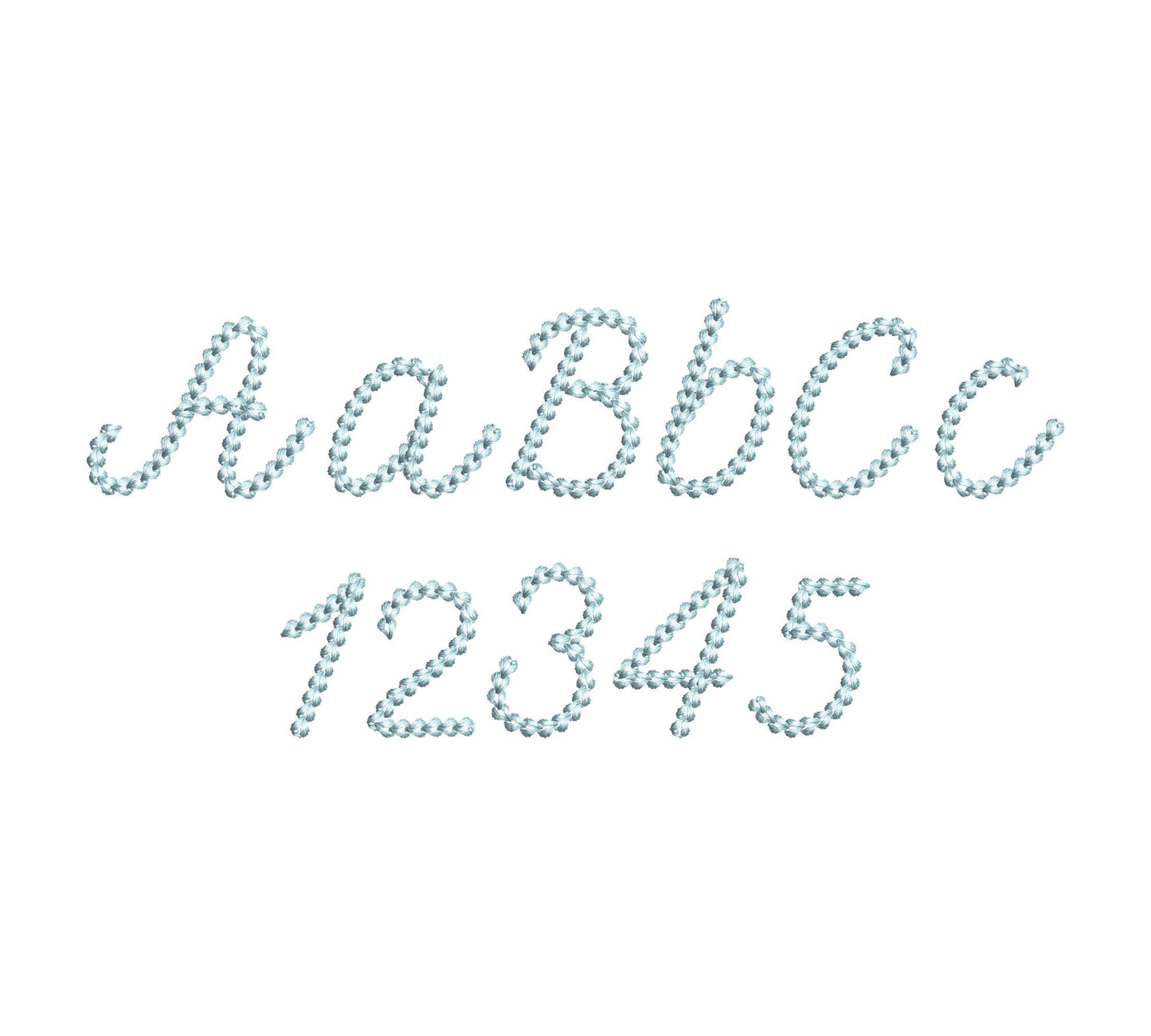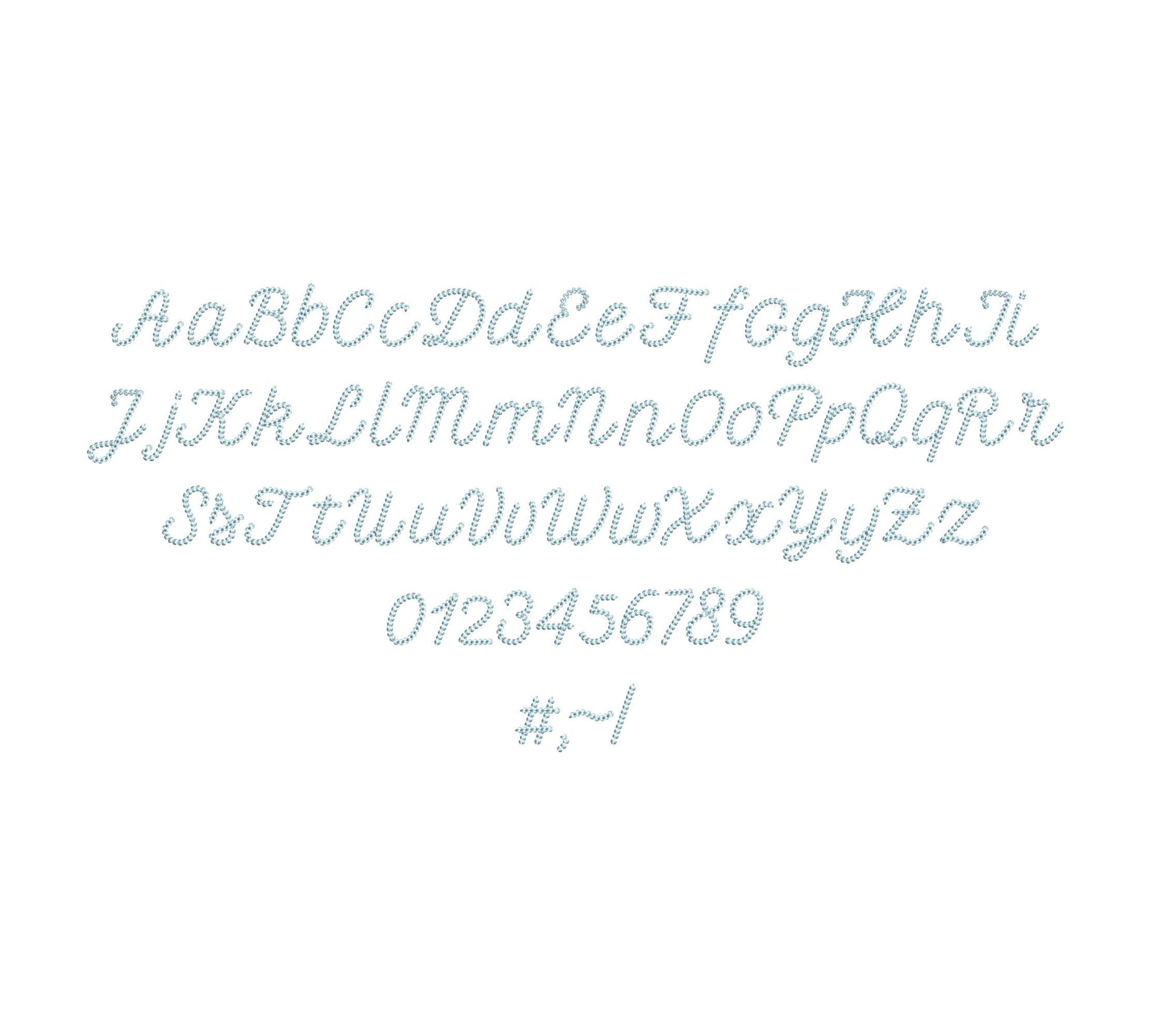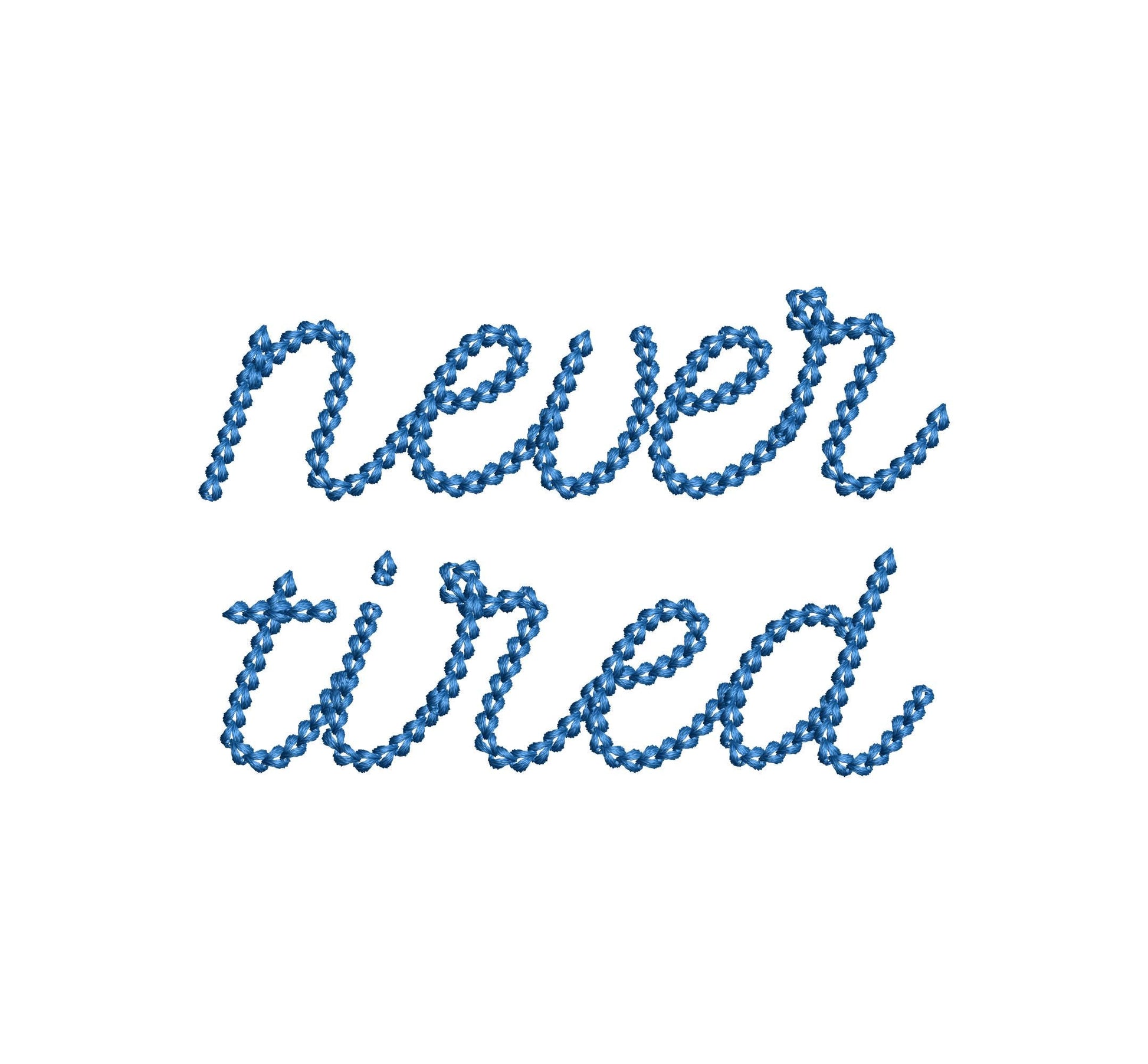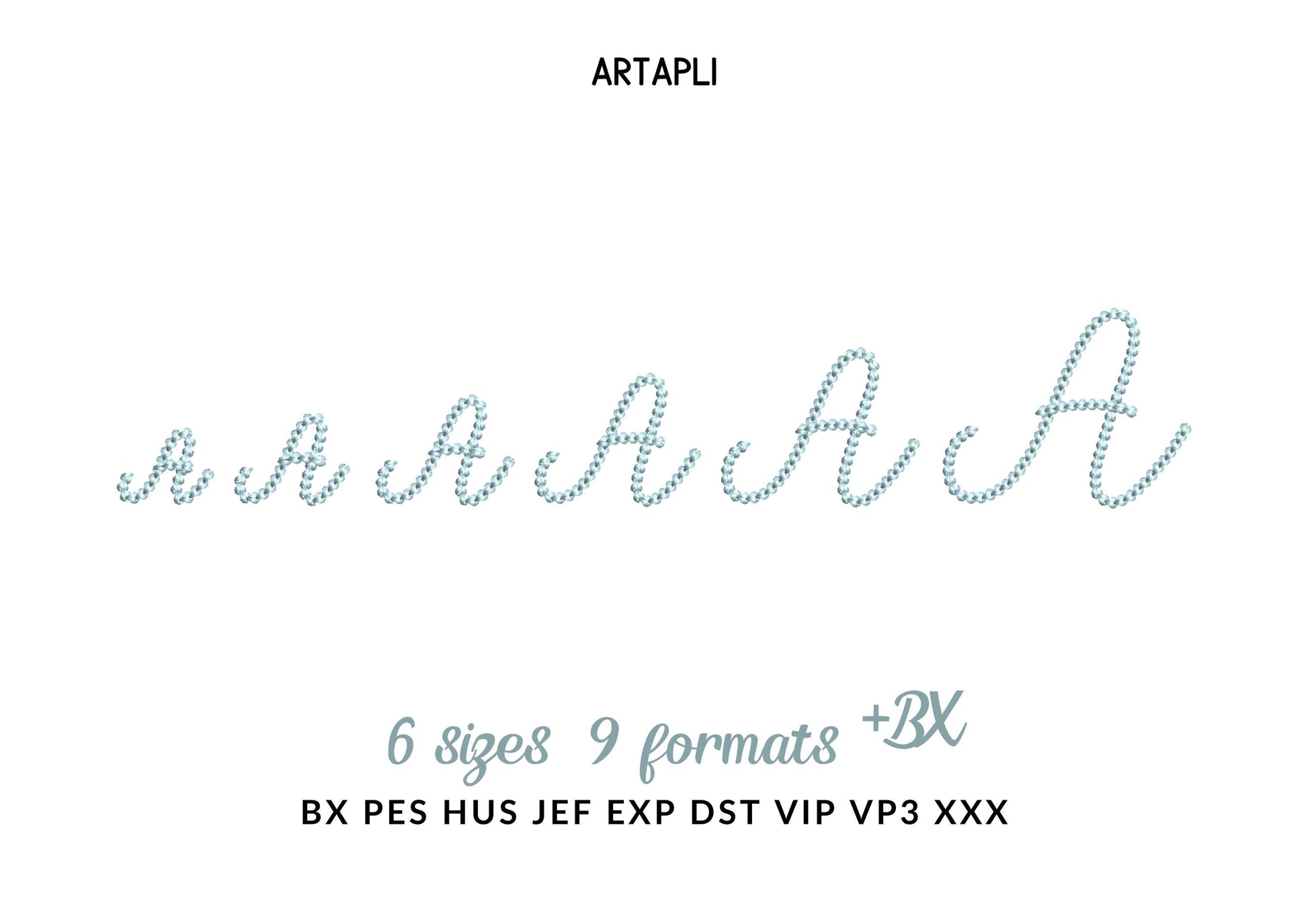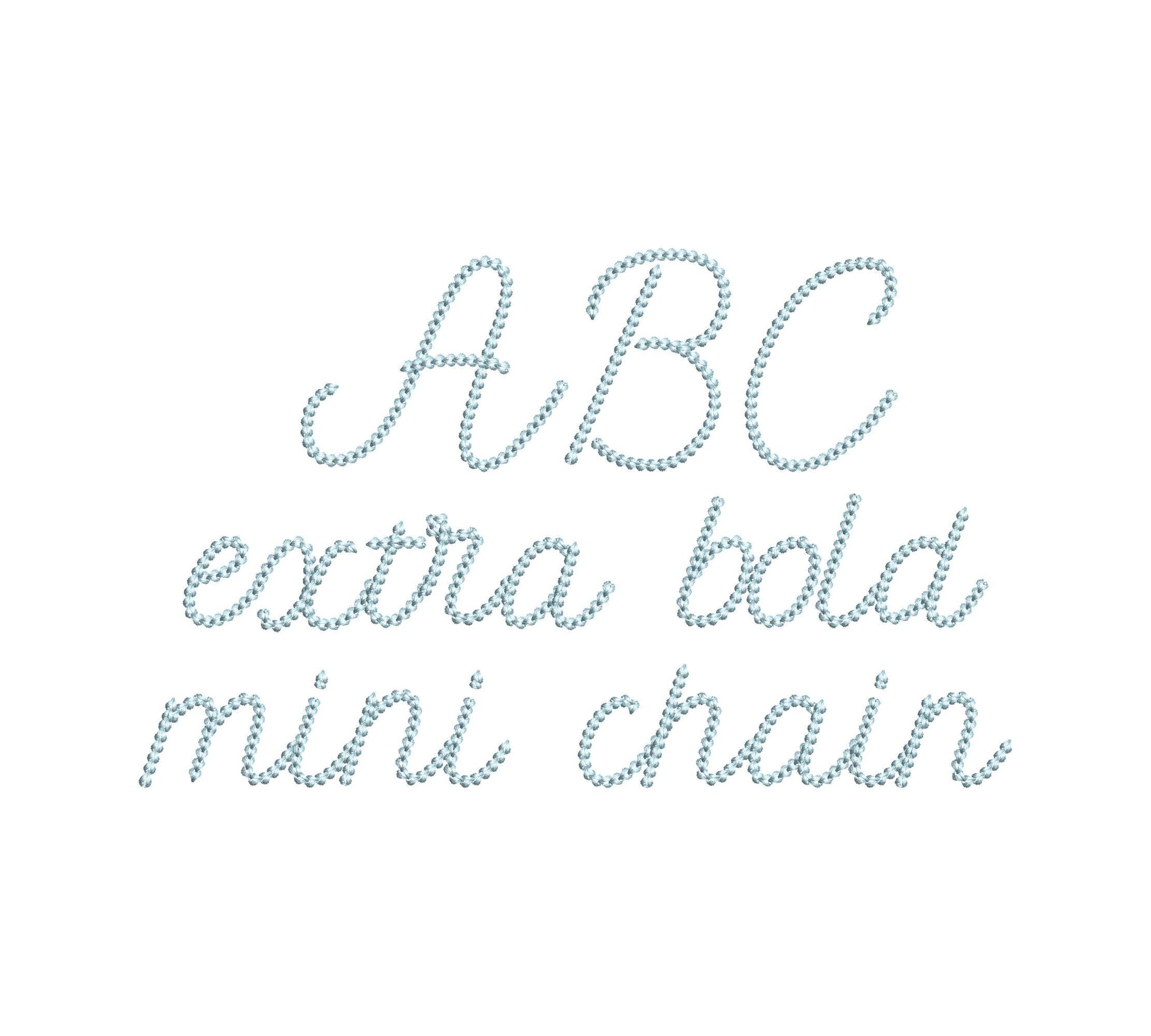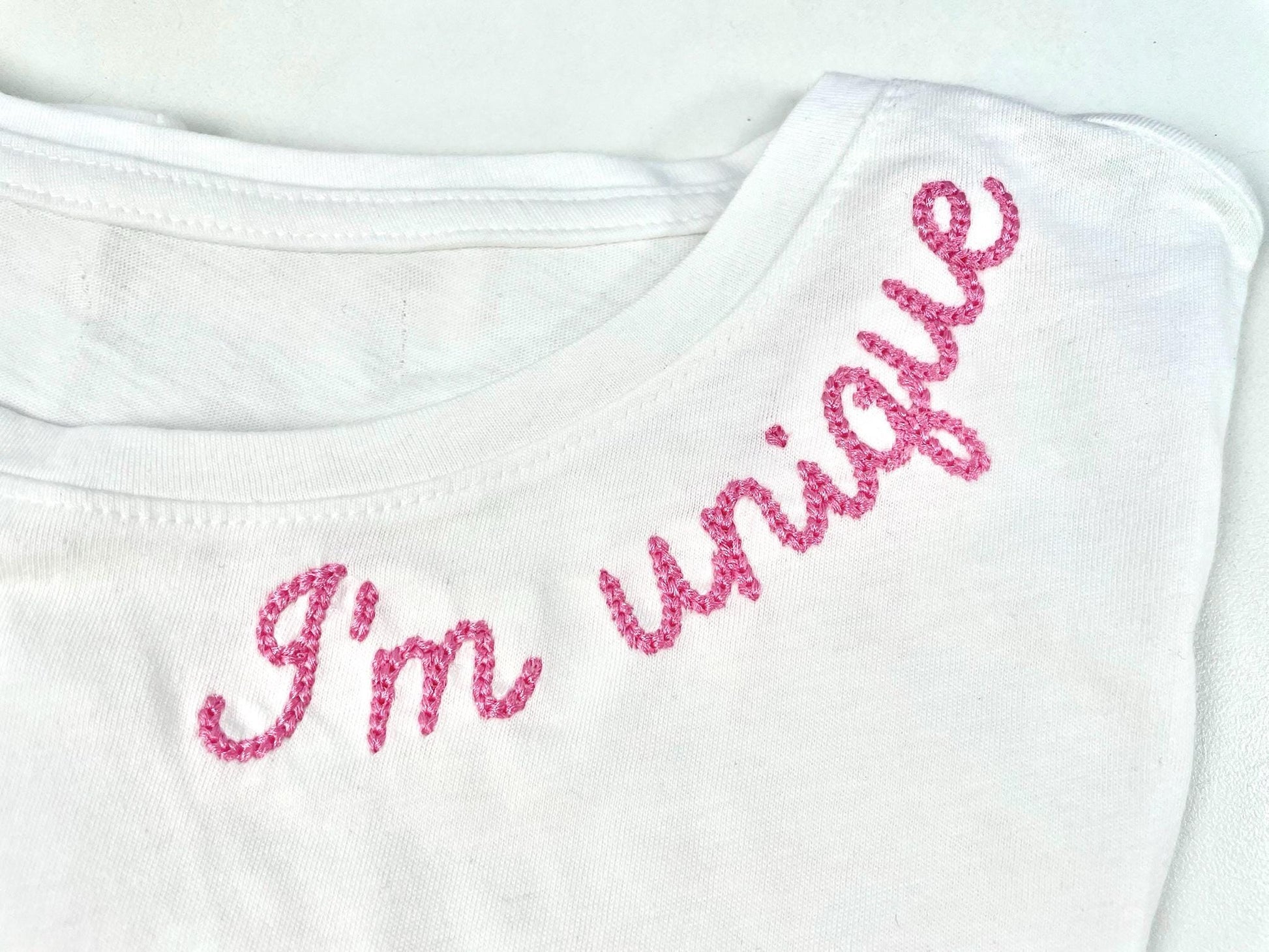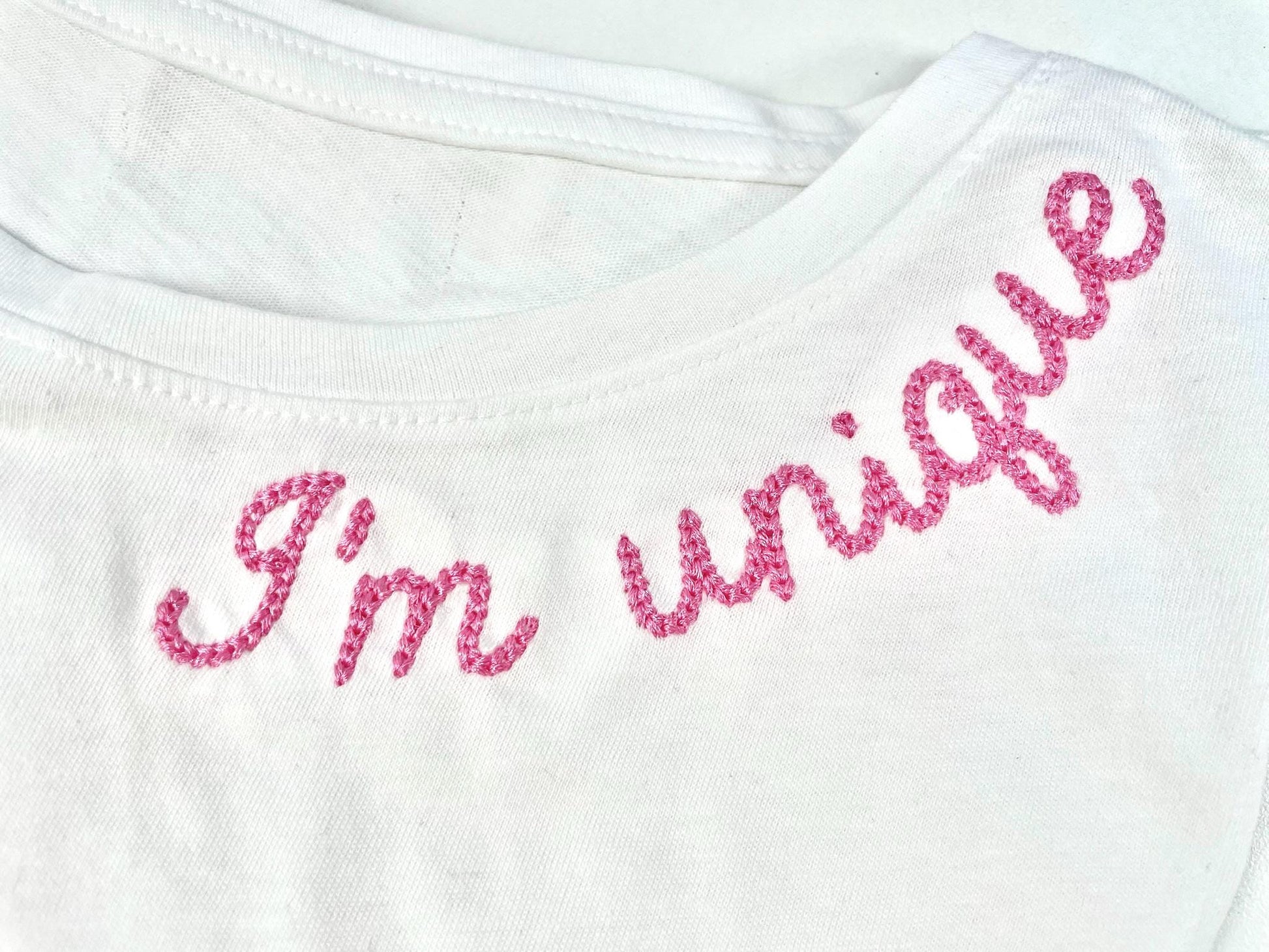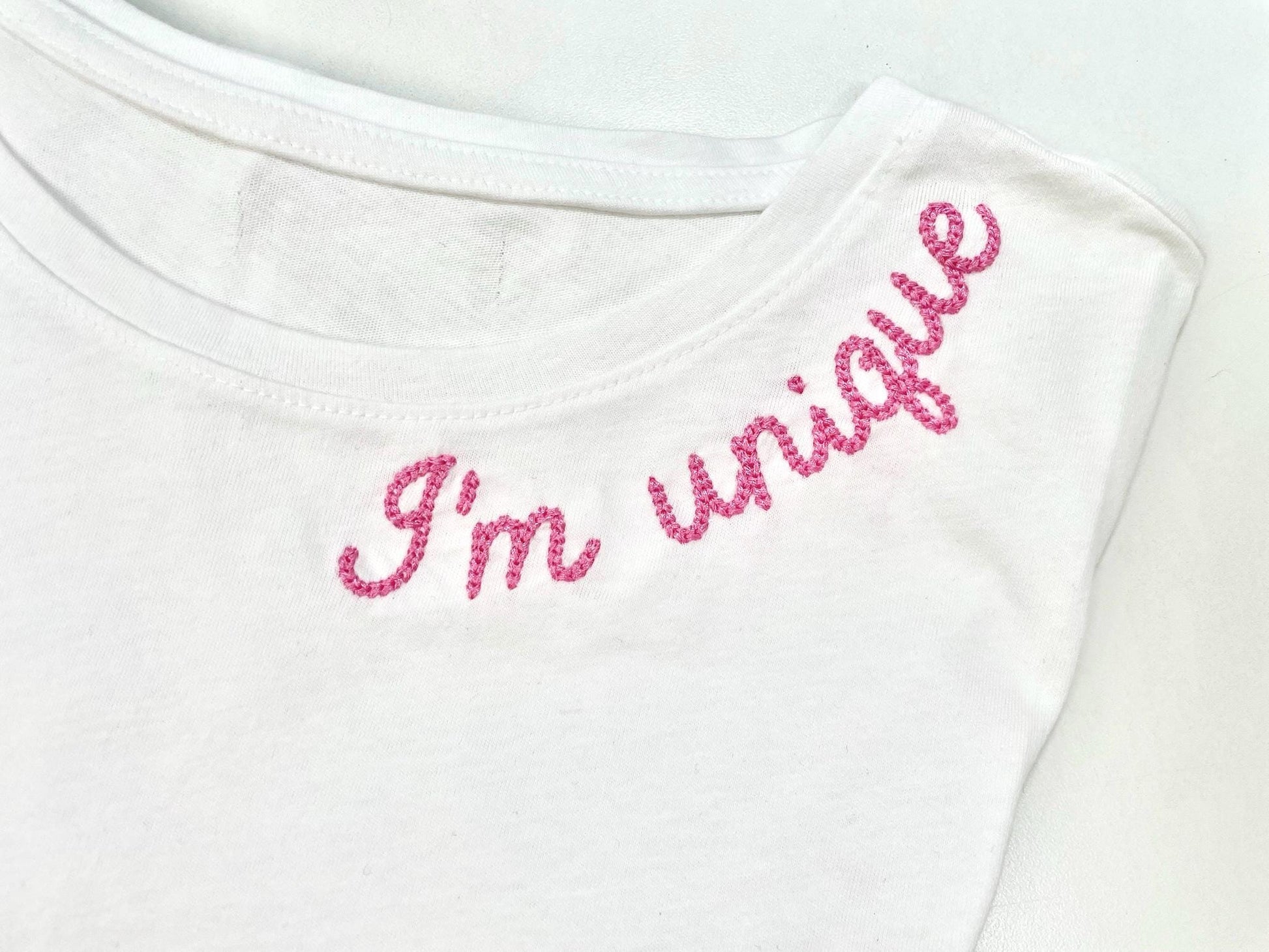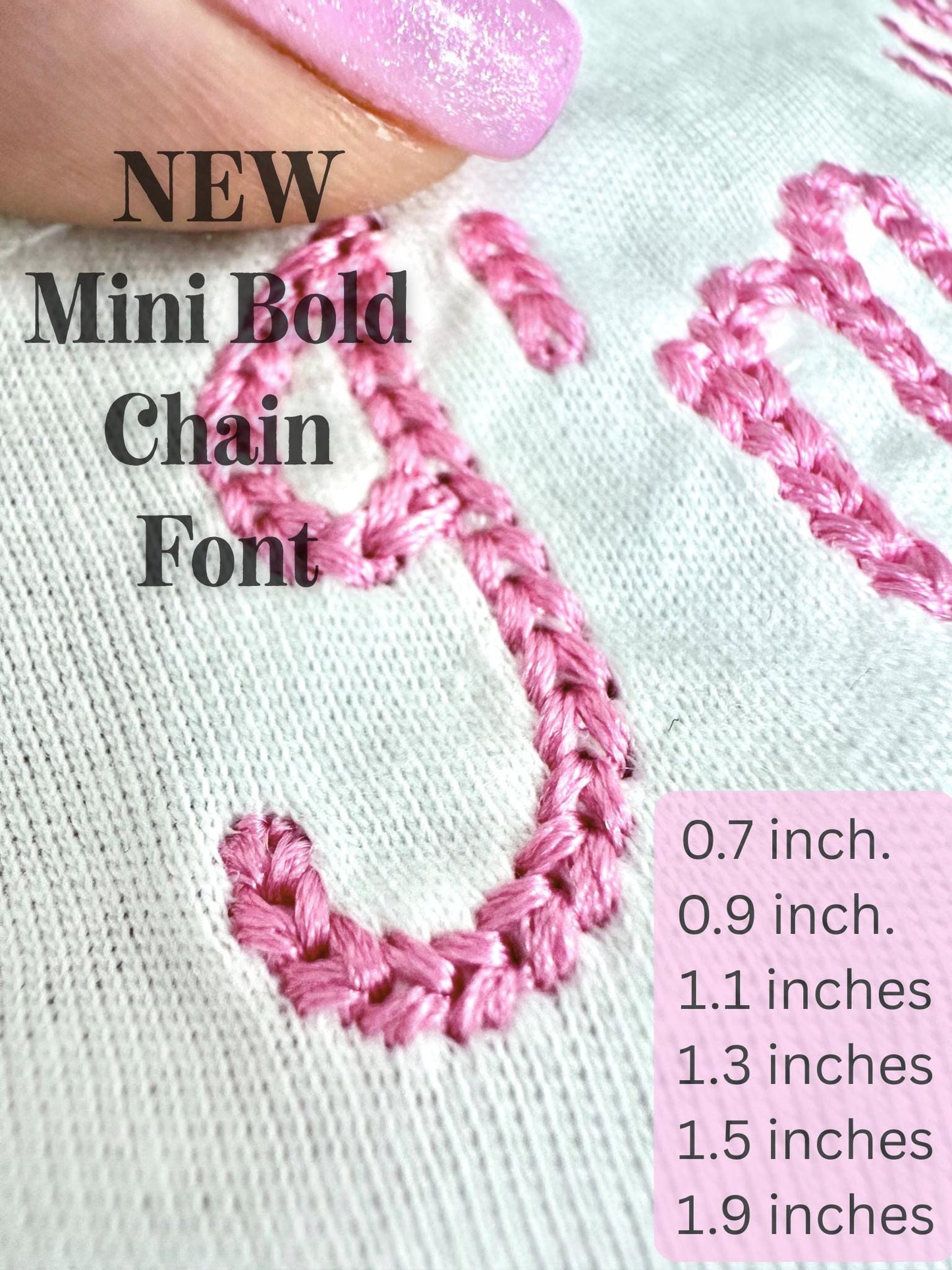
Extra Bold Mini Chain Font Petit
Included: Uppercase A-Z, Lowercase a-z, Numbers 0-9, Punctuation
An extra bold chain stitch script font in mini sizes. Made for kids' and baby names on collars, cuffs and small gifts.
The letters come in six mini sizes: 0.7, 0.9, 1.1, 1.3, 1.5 and 1.9 inches. A thick chain stitch gives the small letters a bold, handmade look. Includes uppercase and lowercase letters A to Z, numbers 0 to 9 and punctuation.
• Extra bold mini chain stitch script font
• Uppercase and lowercase letters, numbers 0 to 9, punctuation
• 6 sizes, 0.7 to 1.9 in